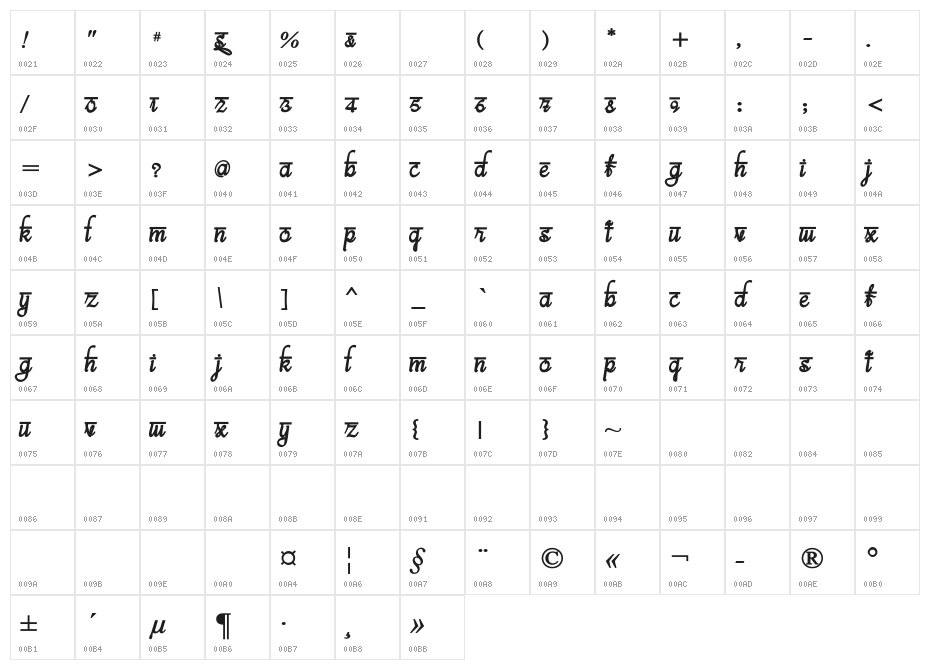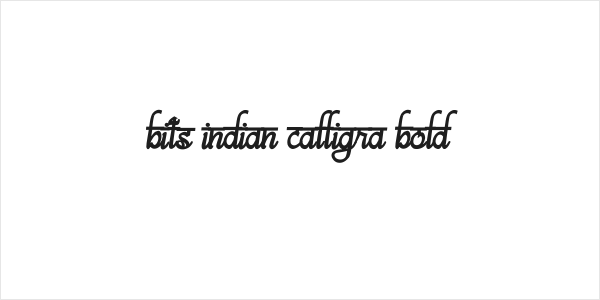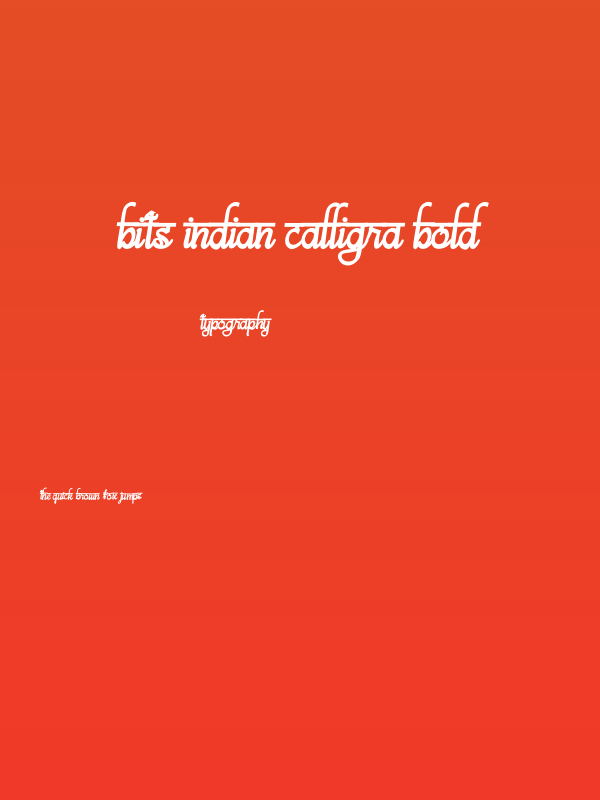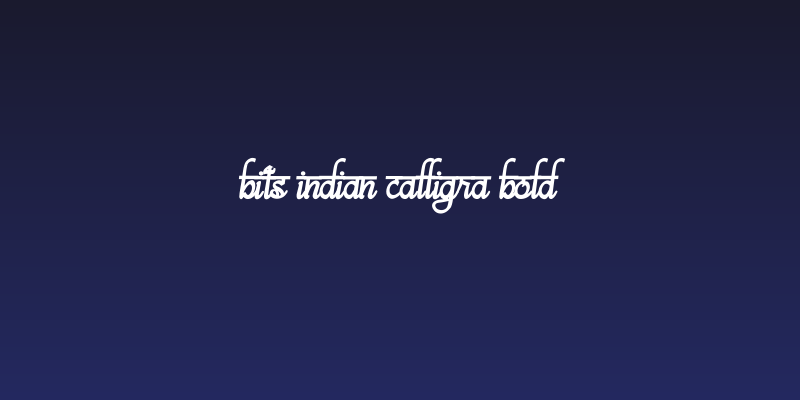
bits indian calligra Bold Font
bits indian calligra Bold Description
This font exudes a bold and dynamic calligraphic style, characterized by its fluid, cursive strokes and elegant loops. The letters are interconnected, creating a seamless flow that enhances its artistic appeal. The bold weight gives it a strong presence, making it suitable for impactful designs. The characters are slightly slanted, adding a sense of movement and grace. The numerals and special characters maintain the same stylistic features, ensuring consistency across all elements. This font is perfect for projects that require a touch of sophistication and creativity.
| Proposed Projects | Ideal for wedding invitations, elegant branding, artistic posters, and decorative headlines. |